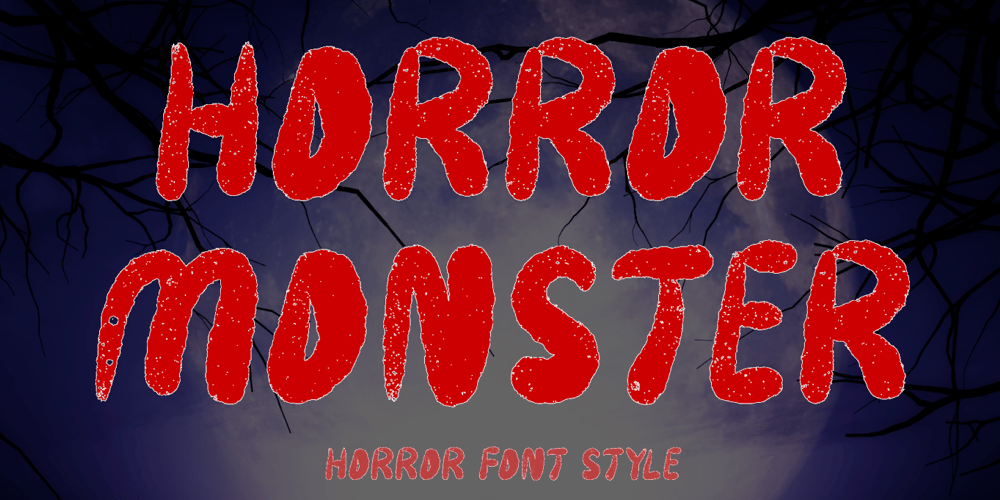
Horror Monster Font Family was designed by Isroni Yoga Prasetya and published by Yoga Letter. Horror Monster contains 1 styles and family package options. “Horror Monster” is a scary horror font. It has a writing texture with small holes in each letter. This font is equipped with uppercase, lowercase, numerals, punctuation, and multilingual support. This font is perfect for posters, banners, stickers, Halloween, horror movie titles, action movies, and more.